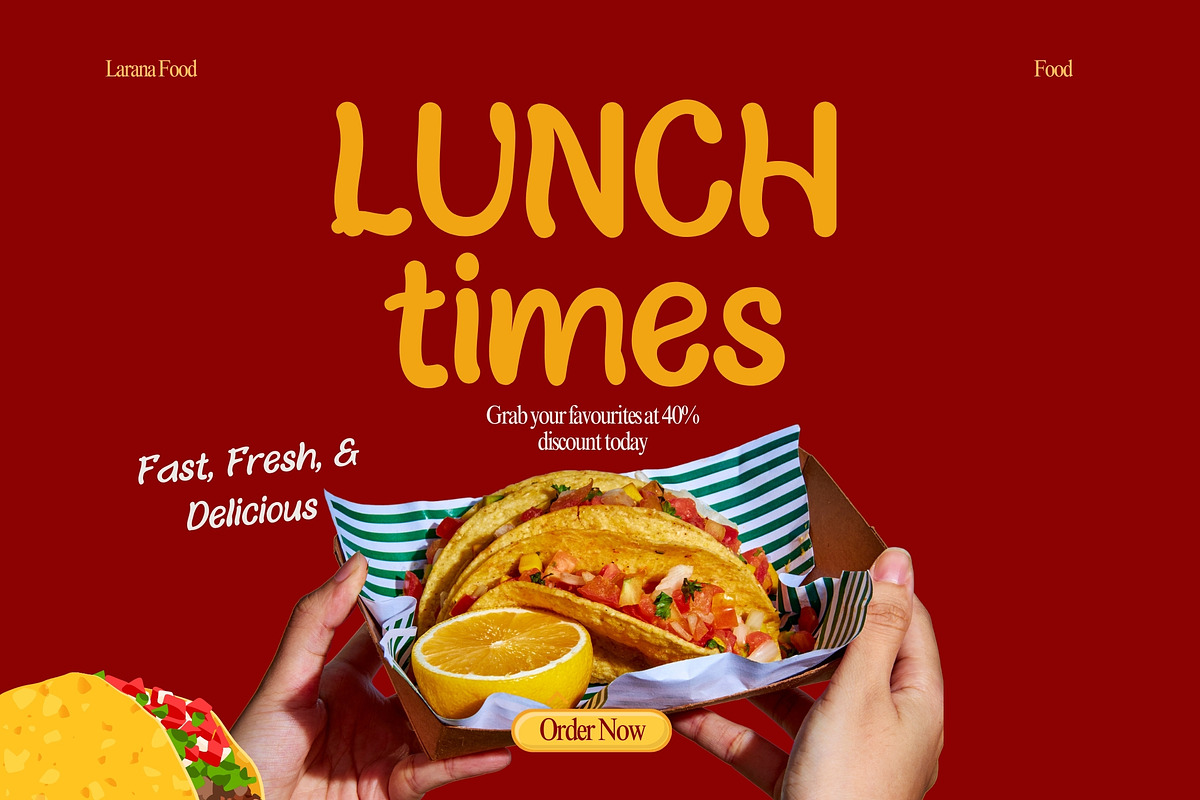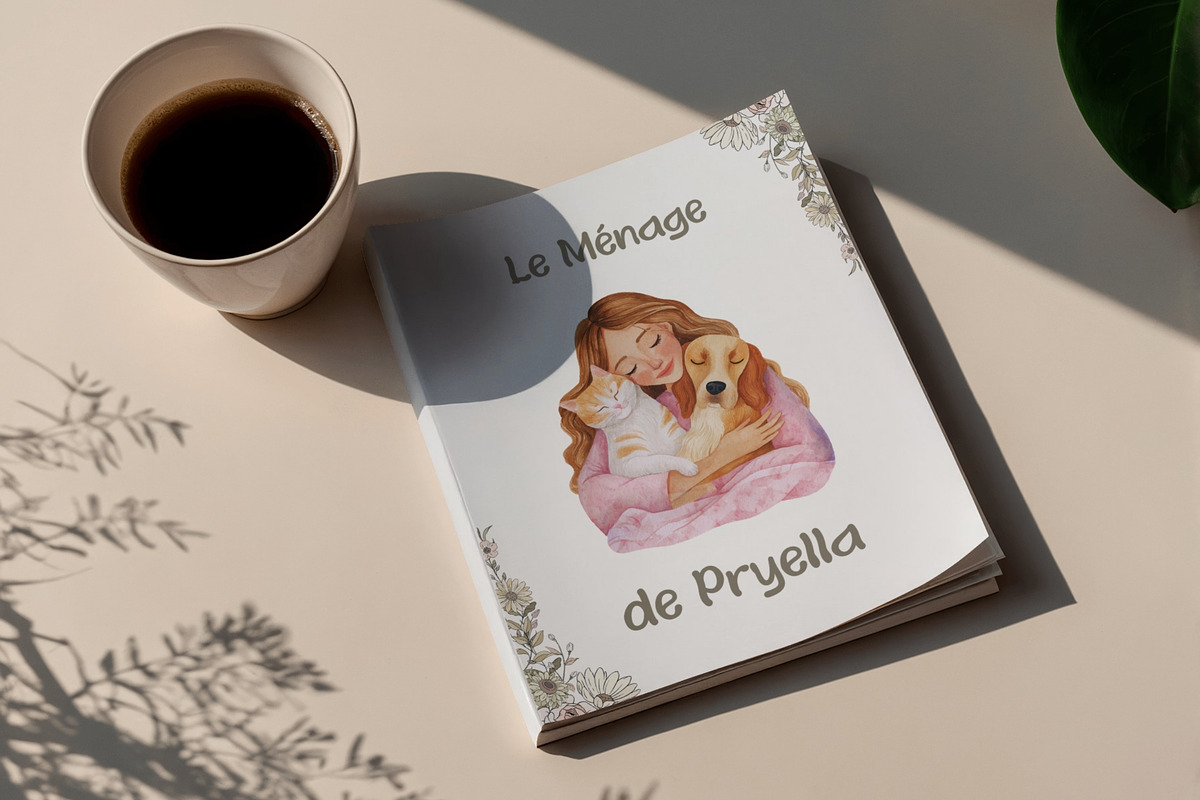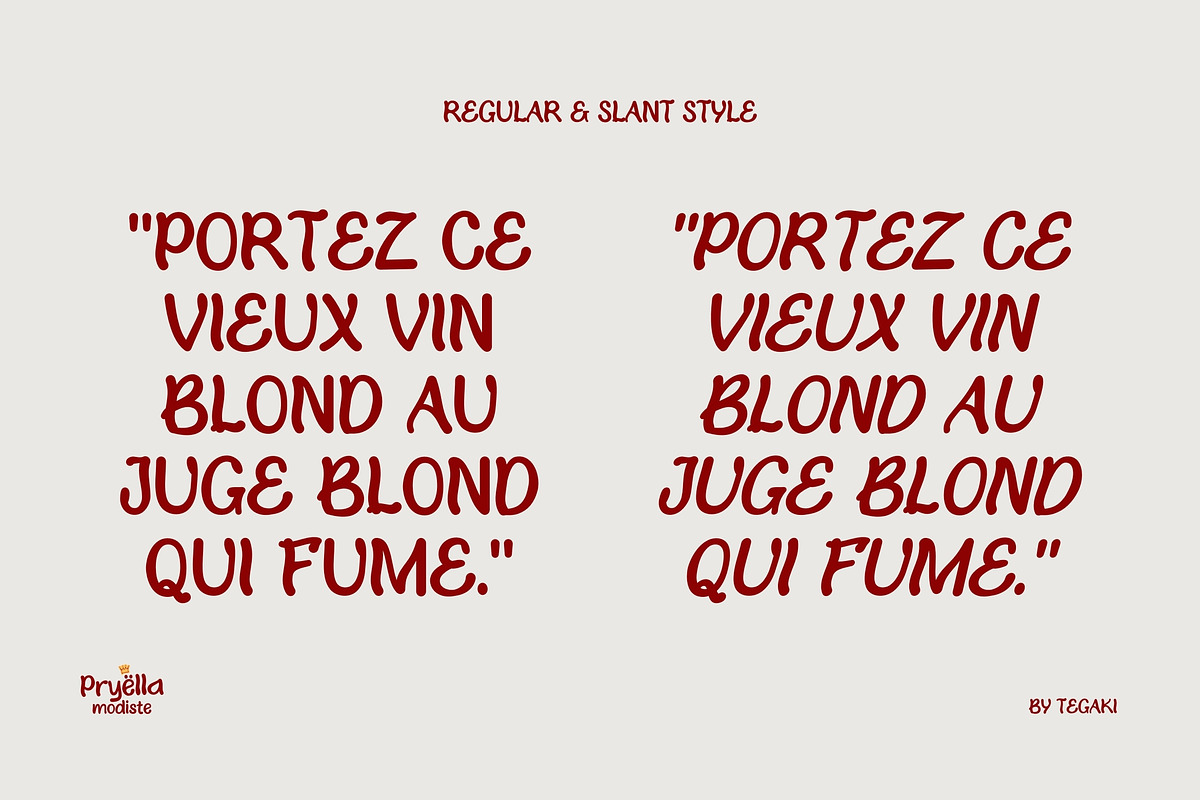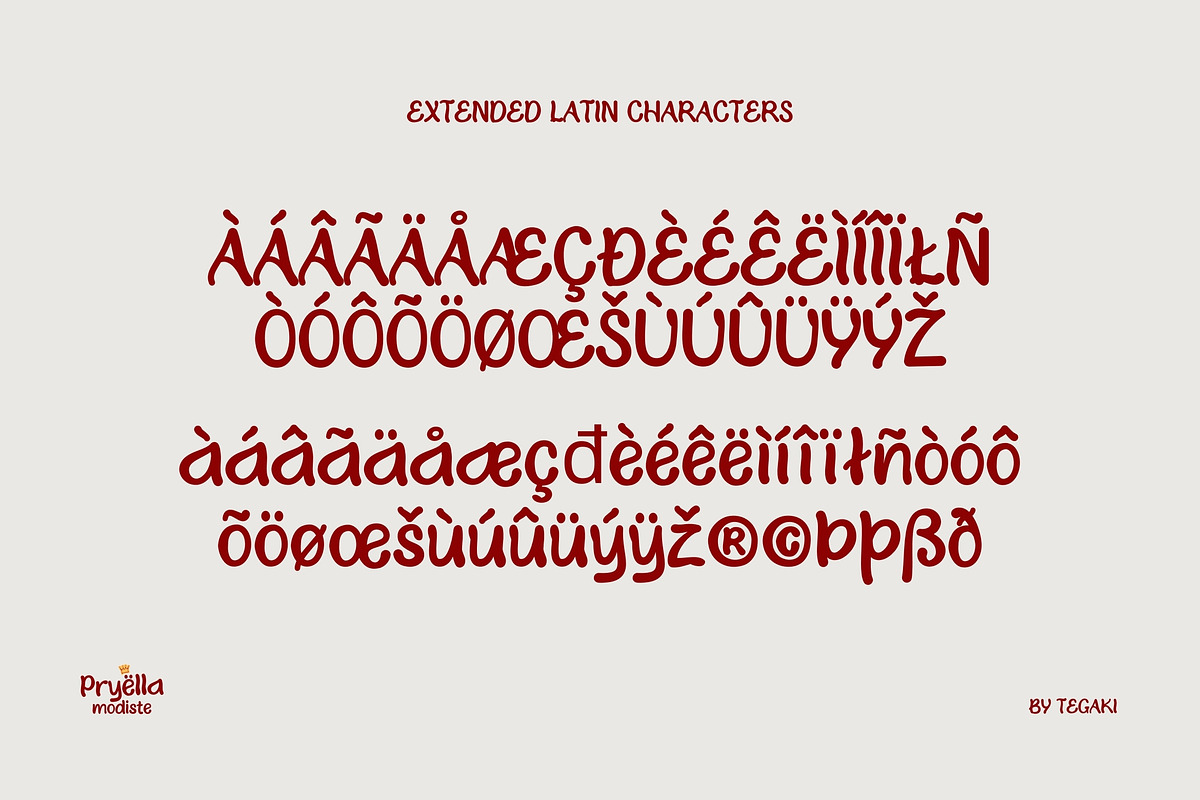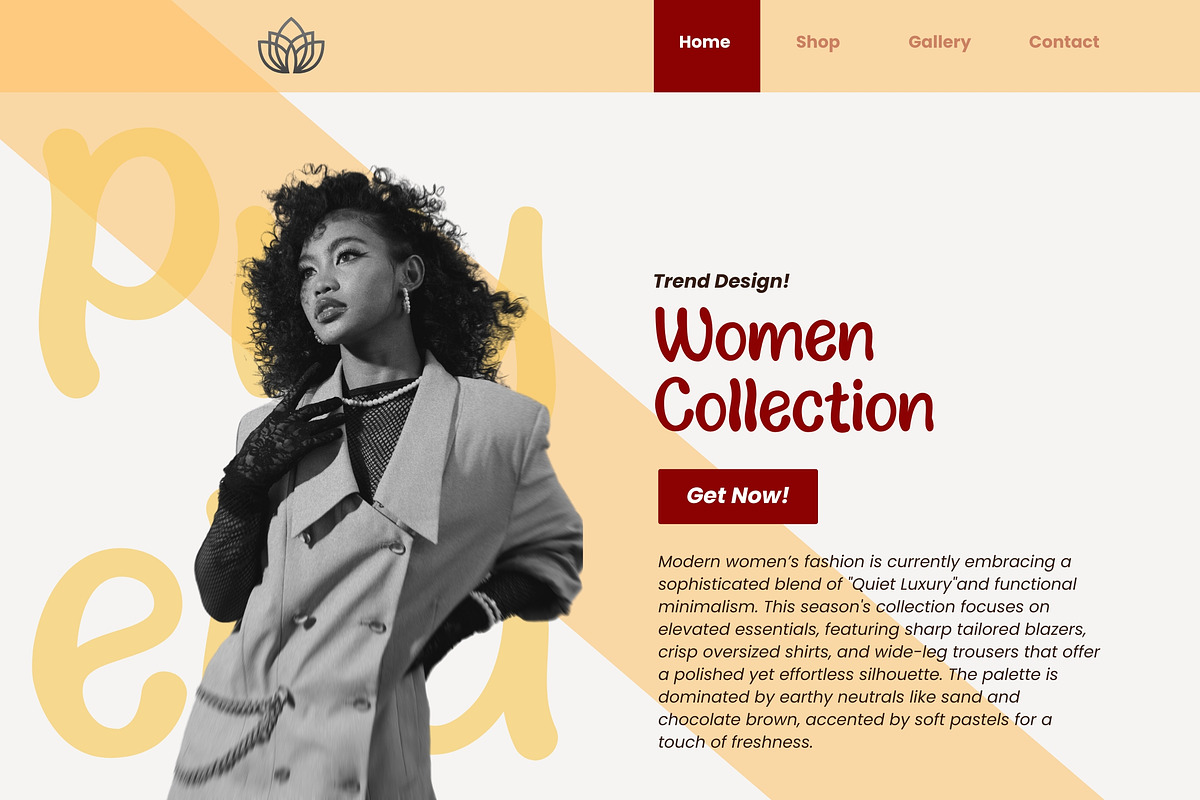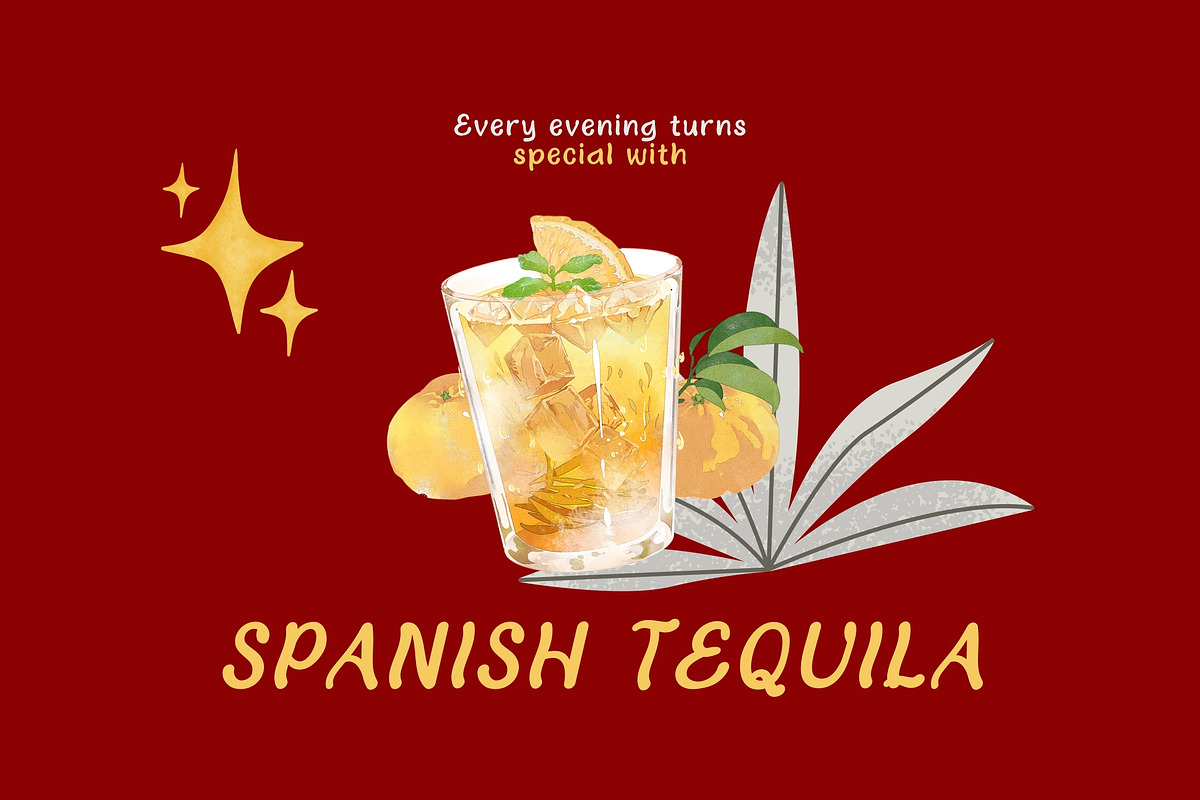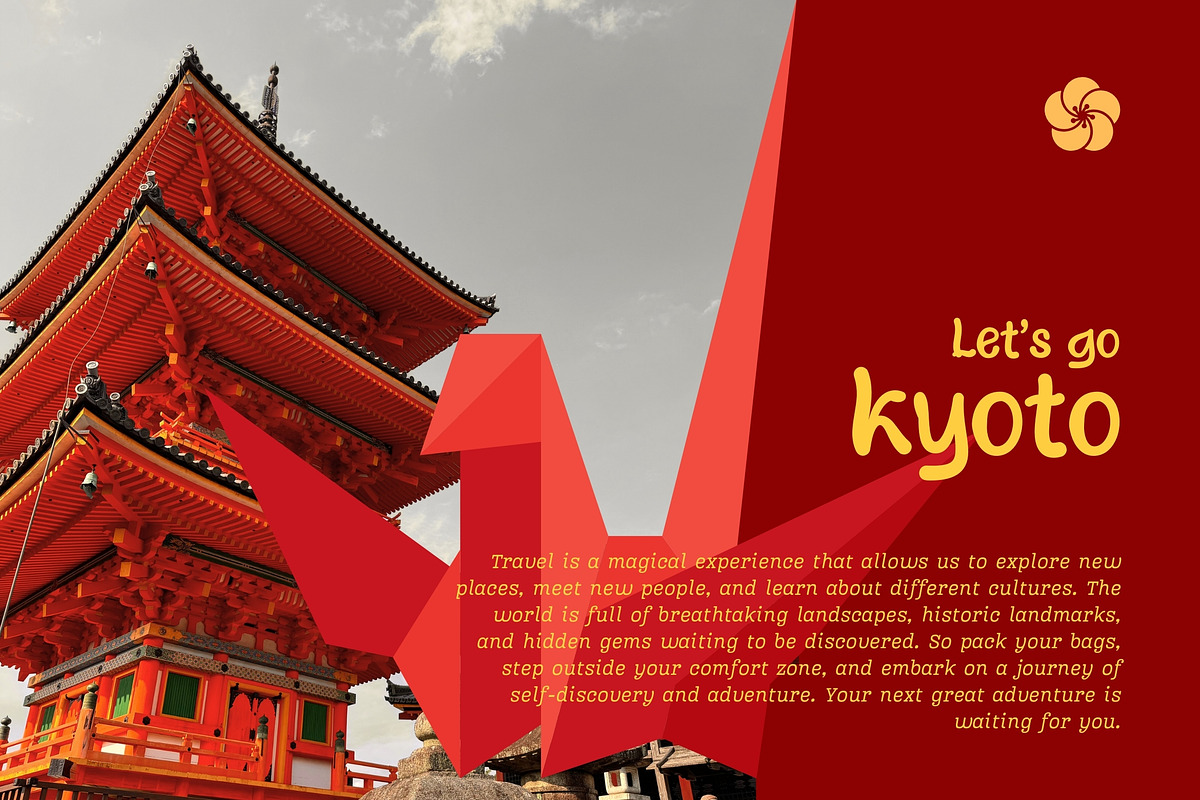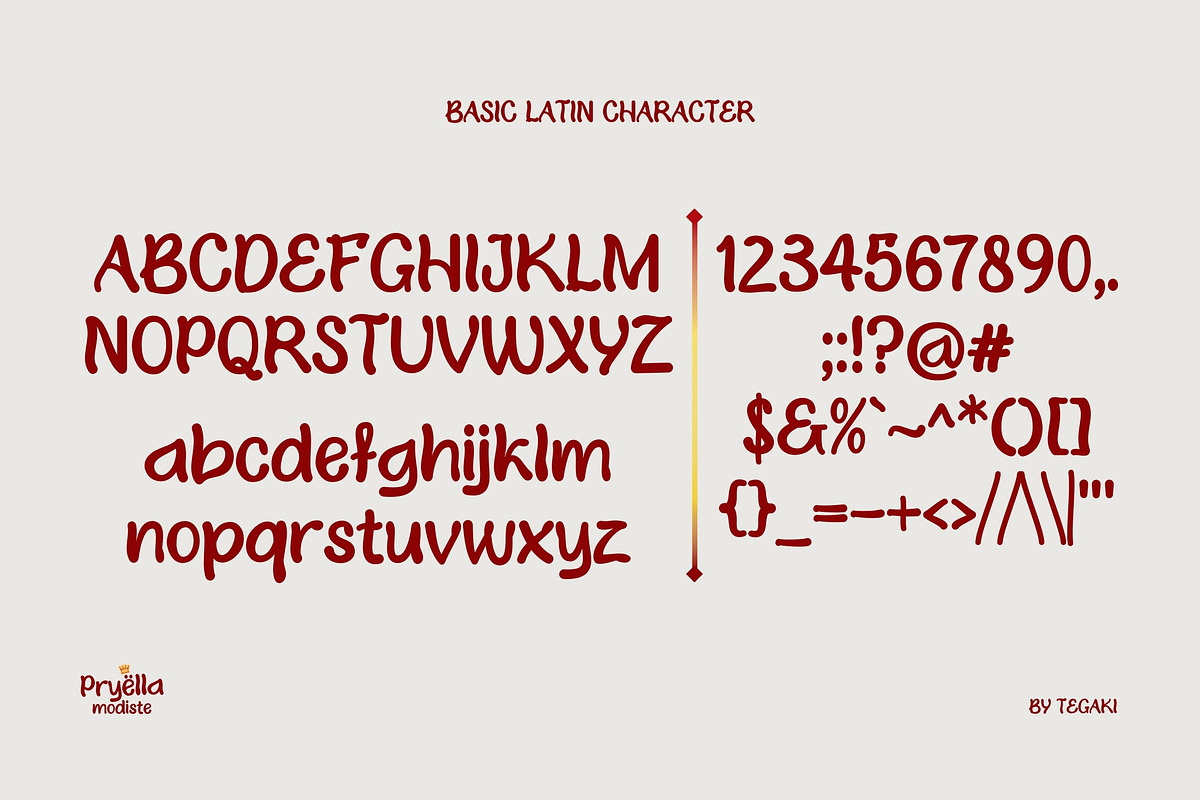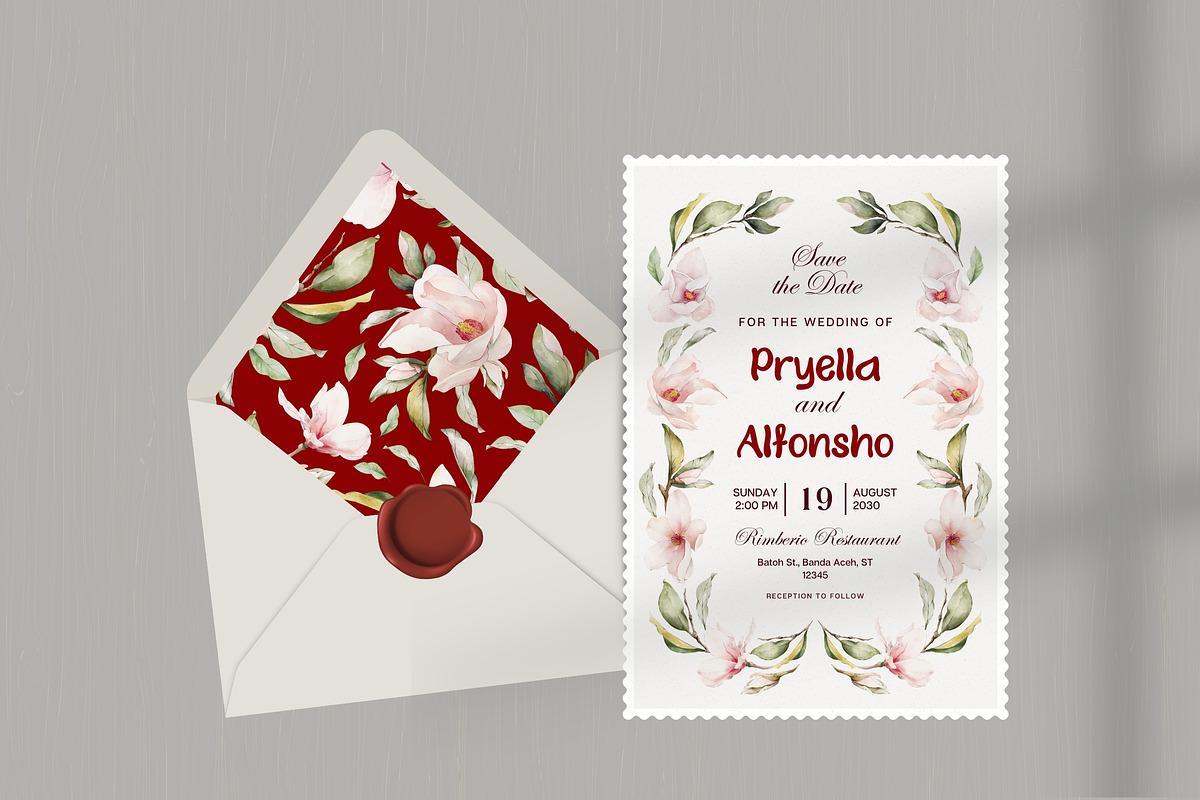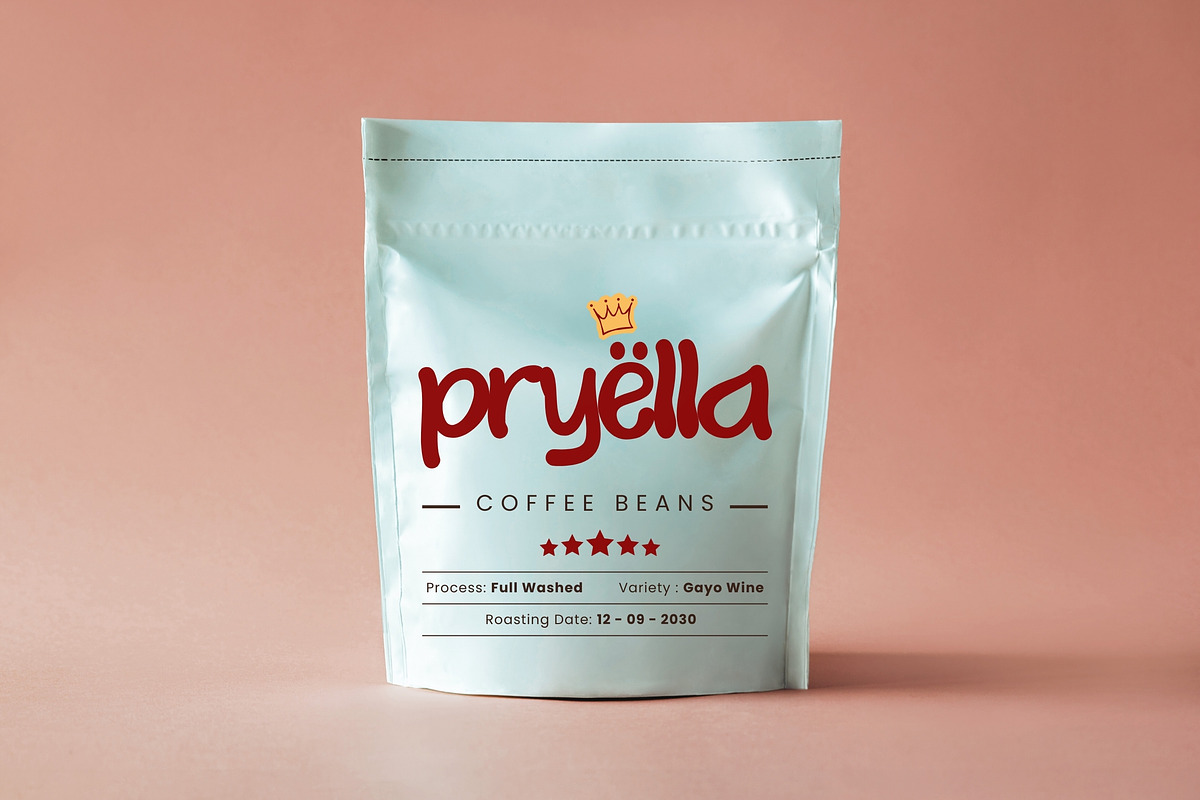
Pryella Modiste
Introducing Pryella Modiste
Designed by Tegaki Script
Pryella Modiste – Modern Handwritten Typeface
Pryella Modiste is a charming modern handwritten typeface designed to bring personality and elegance into your work. Inspired by boutique fashion and handcrafted lettering, this font delivers smooth, playful curves that feel warm, stylish, and effortlessly modern.
Pryella Modiste includes two versatile styles Regular and Slant that allowing you to mix, match, and create expressive layouts with ease. Whether you’re designing logos, branding, packaging, social media graphics, invitations, or feminine projects, this typeface adds a polished handcrafted touch that instantly elevates your design. Stylish, friendly, and highly usable, Pryella Modiste is made to stand out while remaining beautifully readable.